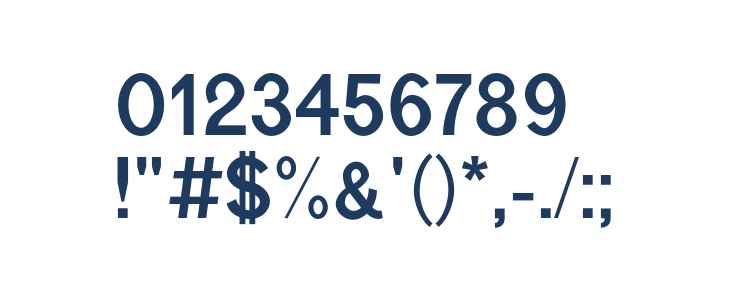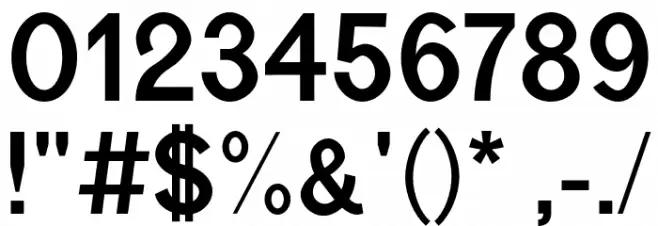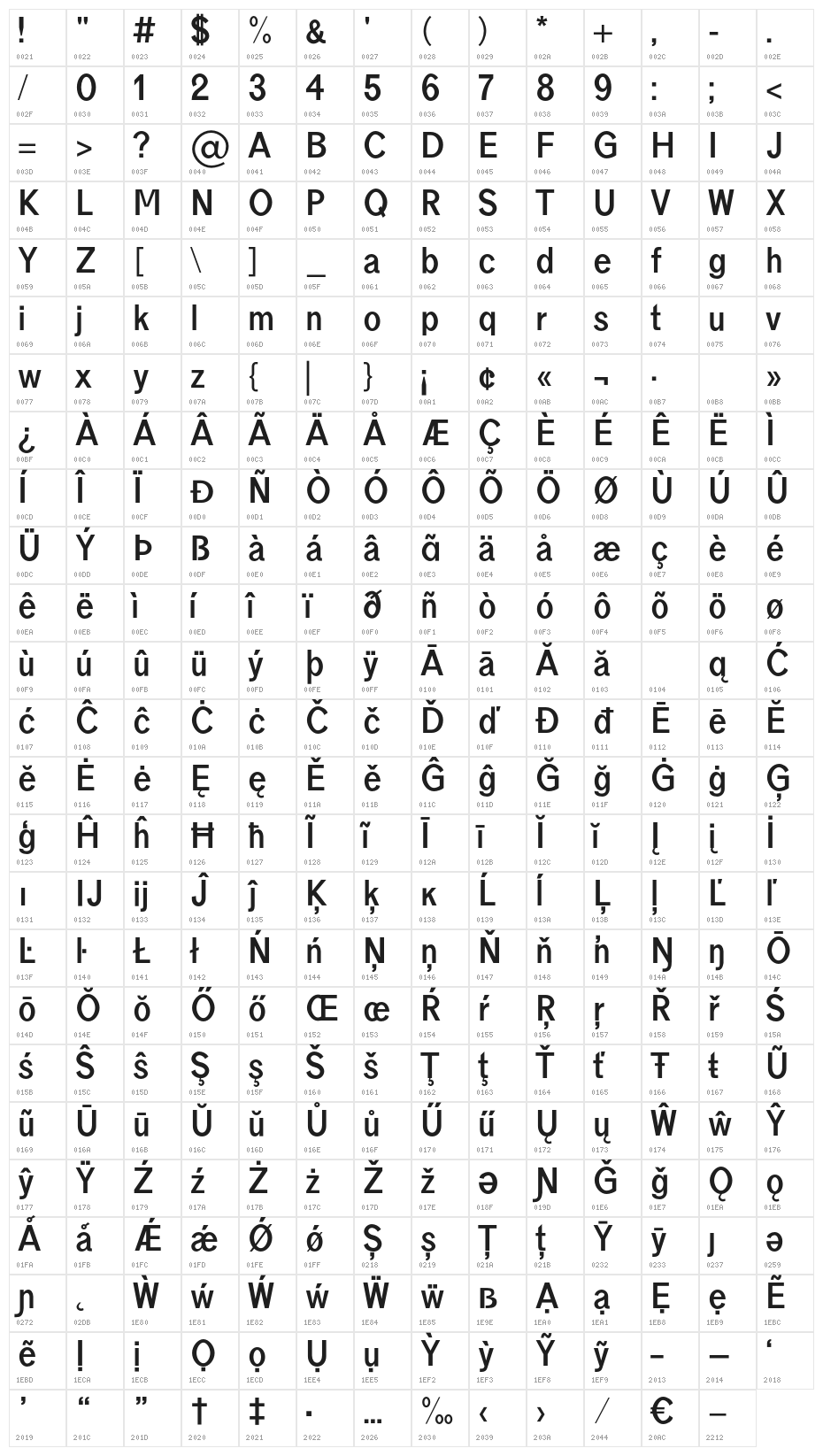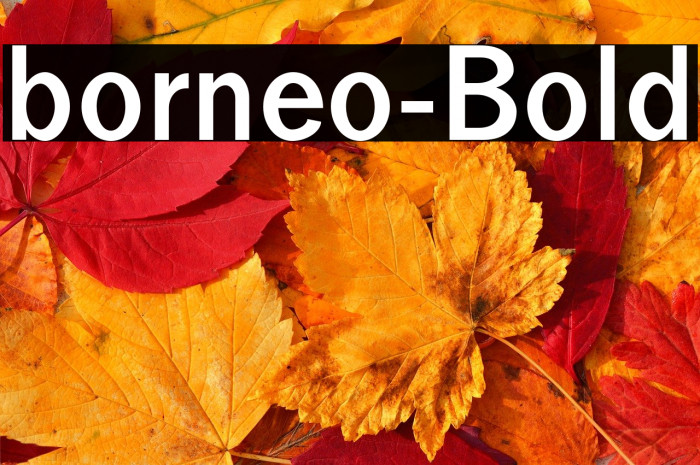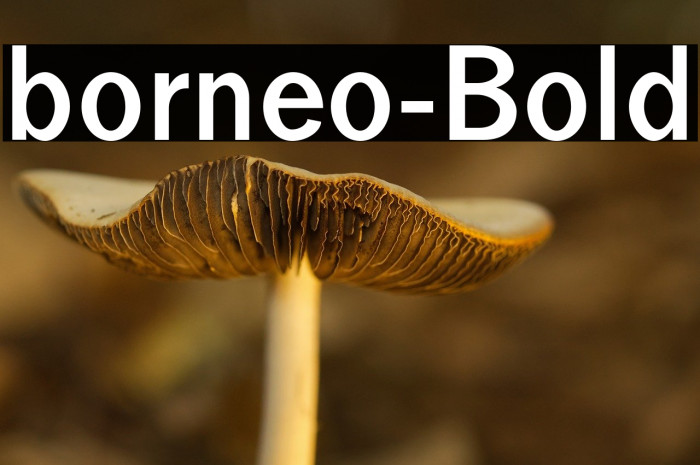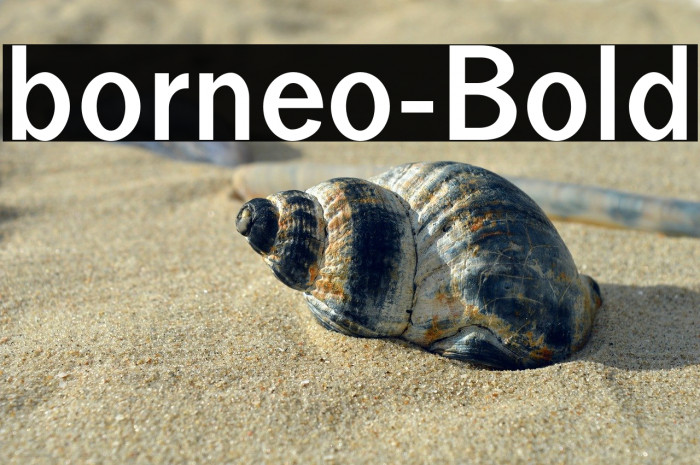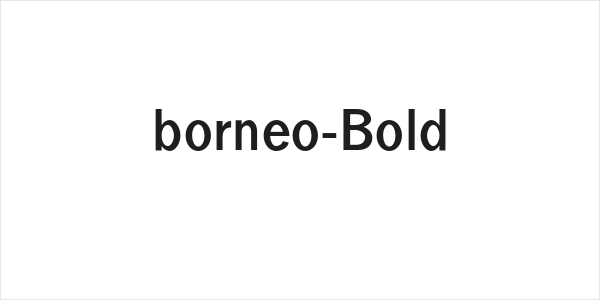
borneo-Bold Font
borneo-Bold Description
This font presents a clean and modern sans-serif style, characterized by its bold weight and uniform stroke width. The characters are well-defined with a geometric structure, providing a sense of stability and clarity. The uppercase and lowercase letters maintain a consistent height ratio, ensuring readability across various sizes. The numerals are straightforward and align seamlessly with the alphabet, while the special characters are distinct and easily recognizable. This font's simplicity and boldness make it versatile for a wide range of applications.
| Use Case | Headlines, Logos, Digital Interfaces |
| Proposed Projects | Ideal for branding, advertising, headlines, and digital interfaces where clarity and impact are essential. |